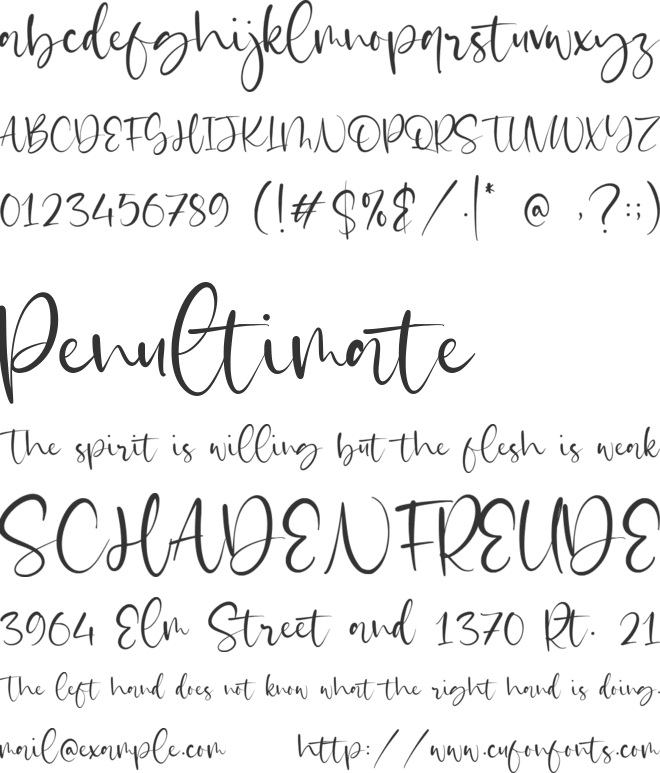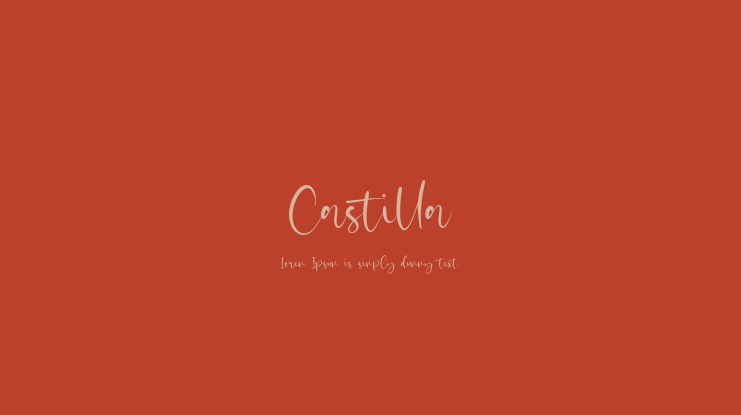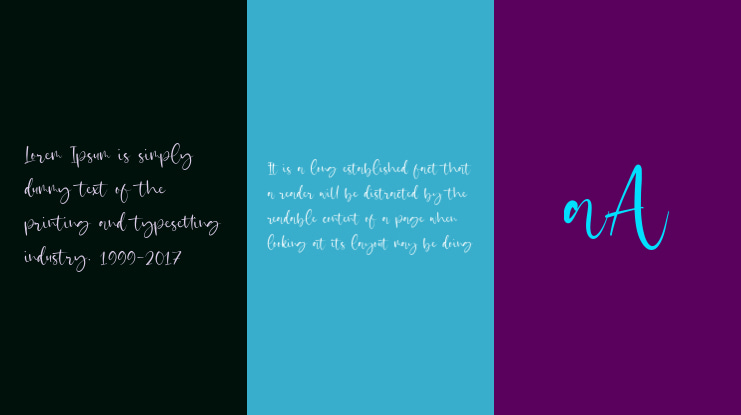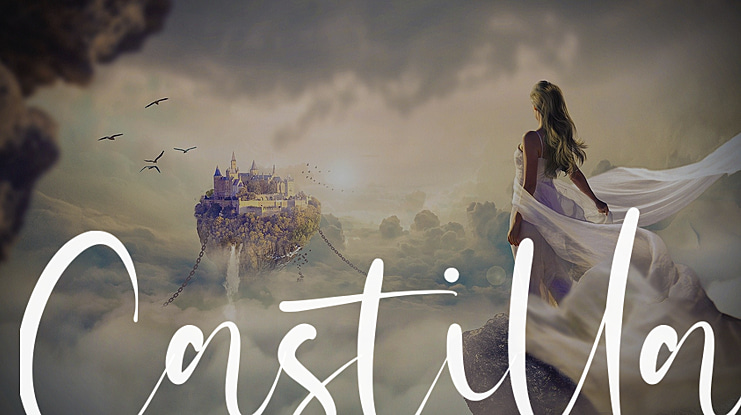
Castilla Font
Introducing by Letterative Studio : Castilla Font
Castilla is a Beautiful Modern Handdrawn Font
Castilla is perfect for product packaging, branding project, megazine, social media, wedding, or just used to express words above the background.
Castilla also multilingual support